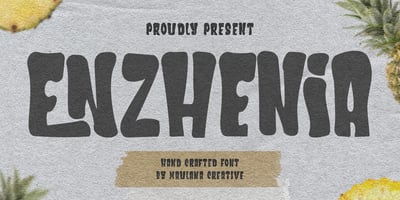
MC Enzhenia
MC Enzhenia font
MC Enzhenia Font Family was designed by Gilang Maulana and published by Maulana Creative. MC Enzhenia contains 1 styles and family package options. Enzhenia stylish display typeface. With vintage stroke, fun character with a ligature and alternate. To give you an extra creative work. Enzhenia support multilingual language. This font is good for logo design, Social media, Movie Titles, Books Titles, a short text even a long text letter and good for your secondary text font with script or serif. Make a stunning work with Enzhenia stylish display typeface.–UppercaseCheers,Maulana Creative